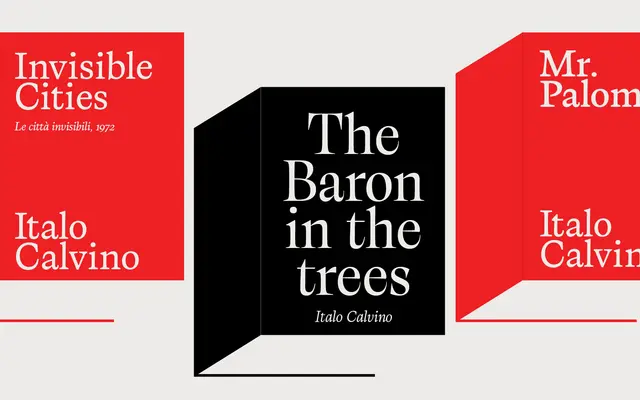
Calvino
A garalde serif by Andrea Tartarelli structured around Italo Calvino's literary principles of exactitude, lightness and multiplicity, spanning text and display subfamilies across 34 styles.
The design draws on sixteenth-century garalde models for its controlled, legible architecture, then tempers that rigour with calligraphic influence in the tradition of Gudrun Zapf. A display subfamily, Calvino Grande, shares the same formal structure but adopts condensed proportions, sharper details and tighter metrics for headlines. The full family covers over 200 languages in Latin and Cyrillic, includes four variable fonts with weight and optical size axes, and ships with an extensive set of OpenType features.
Tartarelli explicitly references sixteenth-century garalde typography as the structural model, with calligraphic hand influence adding rhythm and warmth to the letterforms.